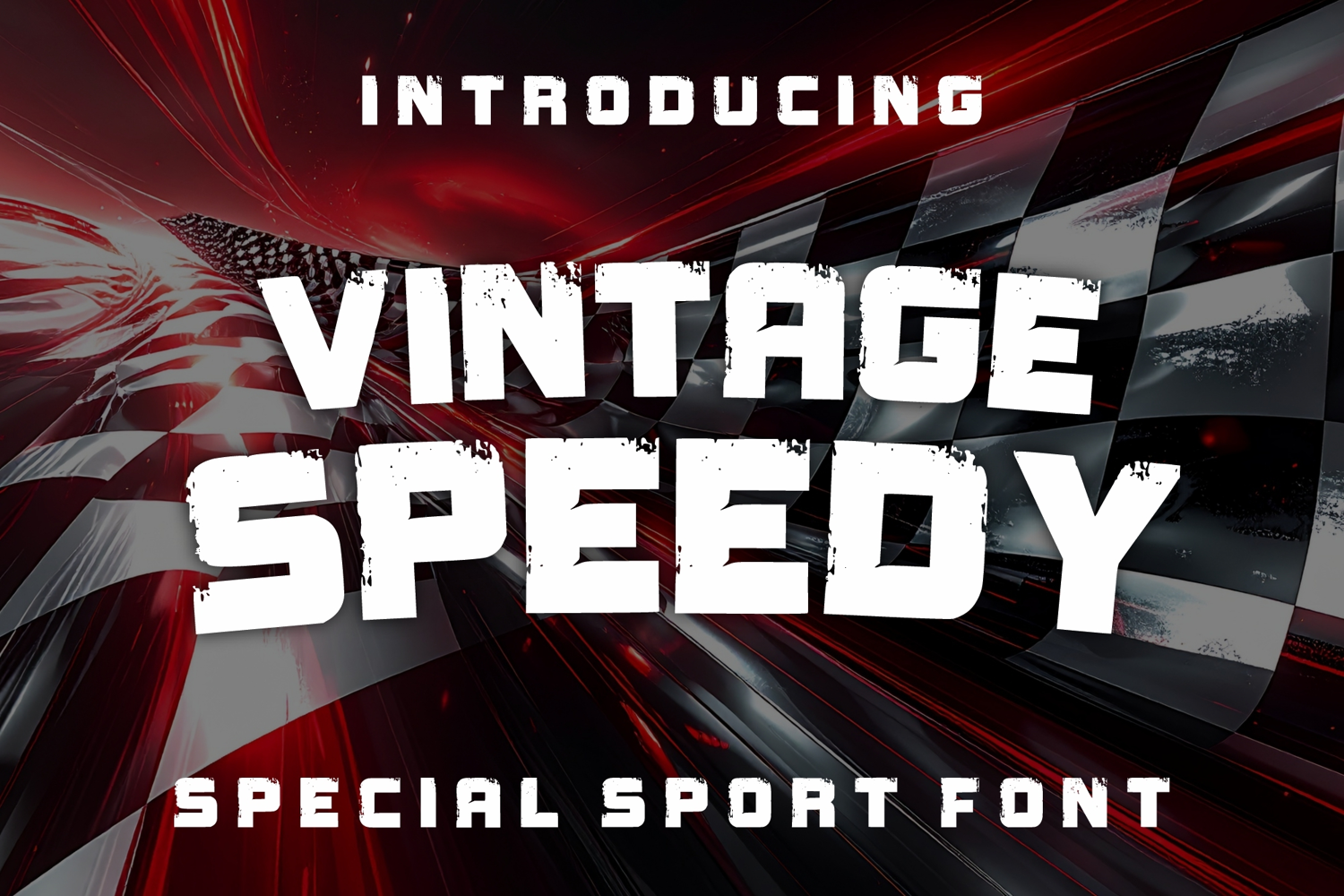
Vintage Speedy
🏎️ Vintage Speedy: Sporty Display
Vintage Speedy is an adrenaline-fueled display font, custom-built for high-impact graphics and designs that need to convey raw power and aggressive speed.
This typeface features bold, chunky letterforms combined with an intense, distressed texture that screams motorsport, grunge, and street racing culture.